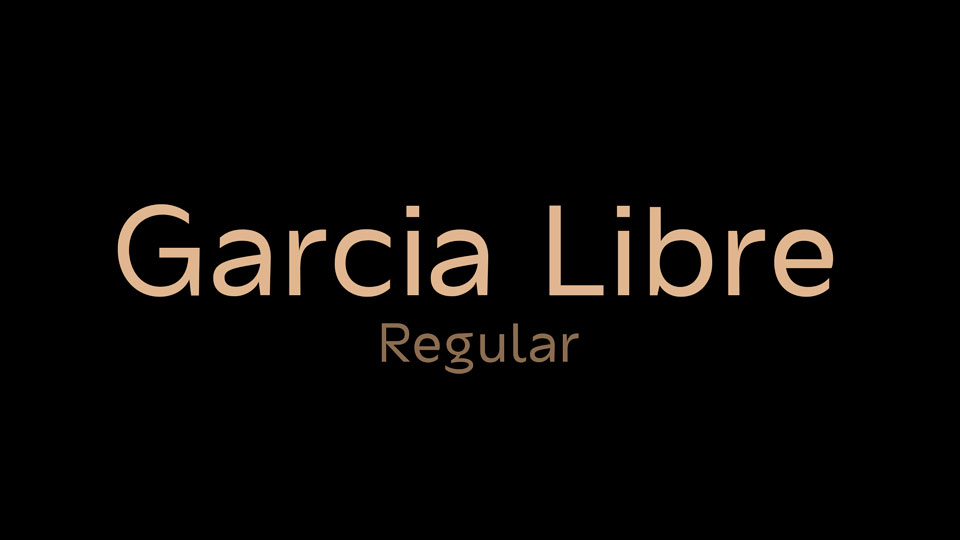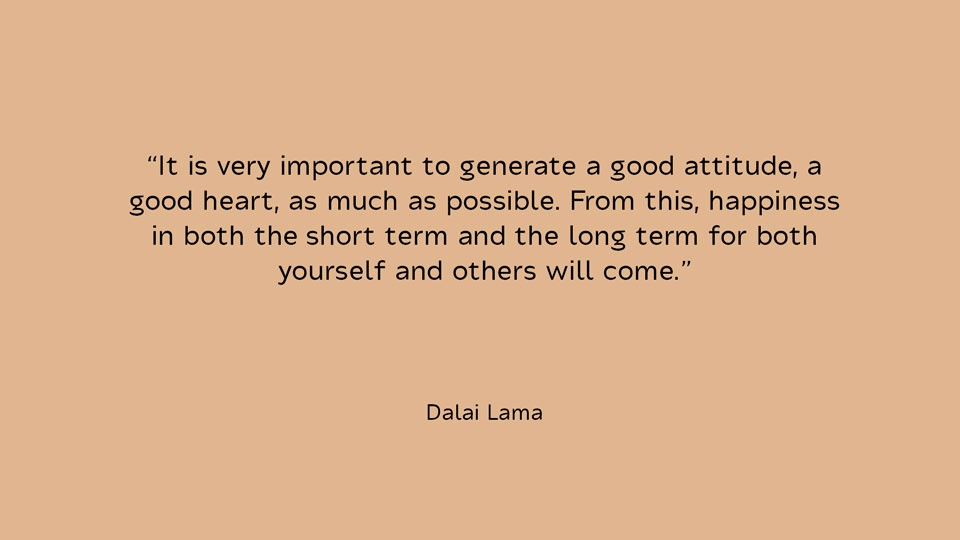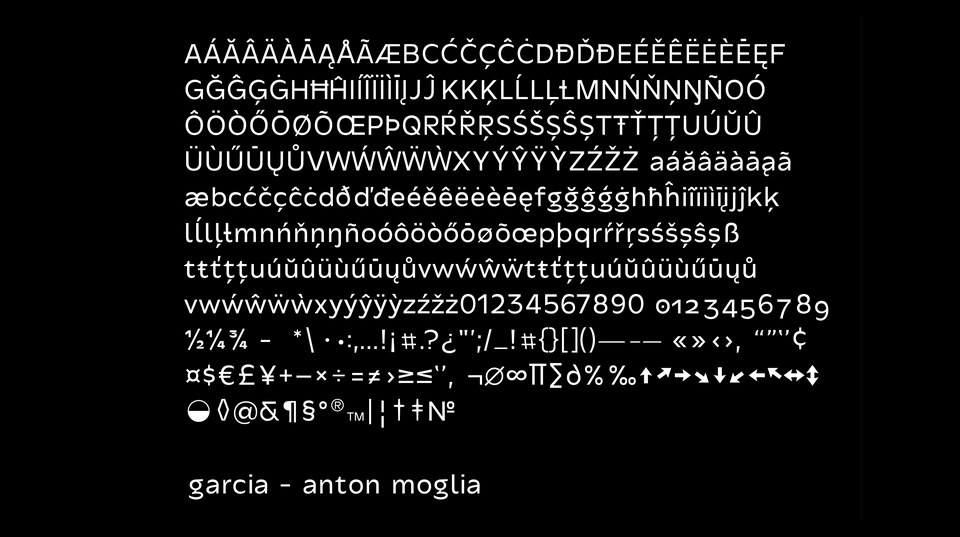
Garcia Libre is a modern sans serif typeface. It comes in Regular weight, contains a complete set of glyphs, including multilingual support.
Garcia Libre works well for texts. It’s suitable for editorial use, web publishing, print templates and other projects.
Garcia Libre was redesigned and extended to Paysage font family.